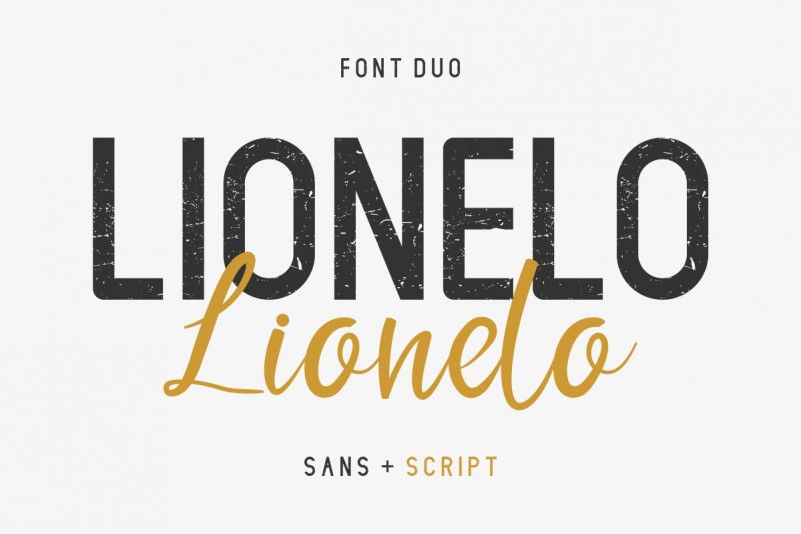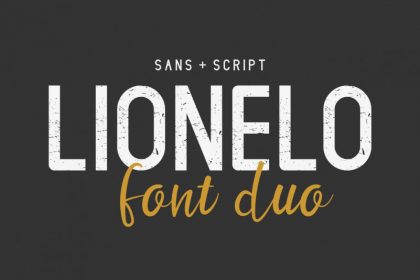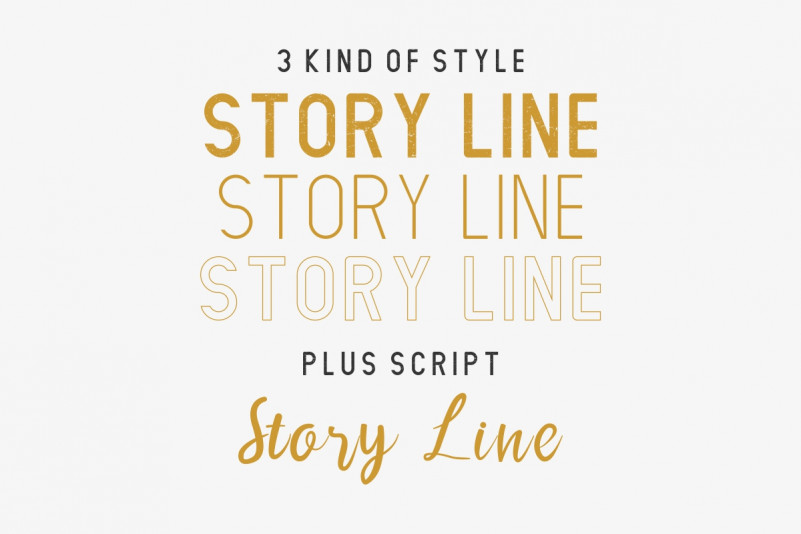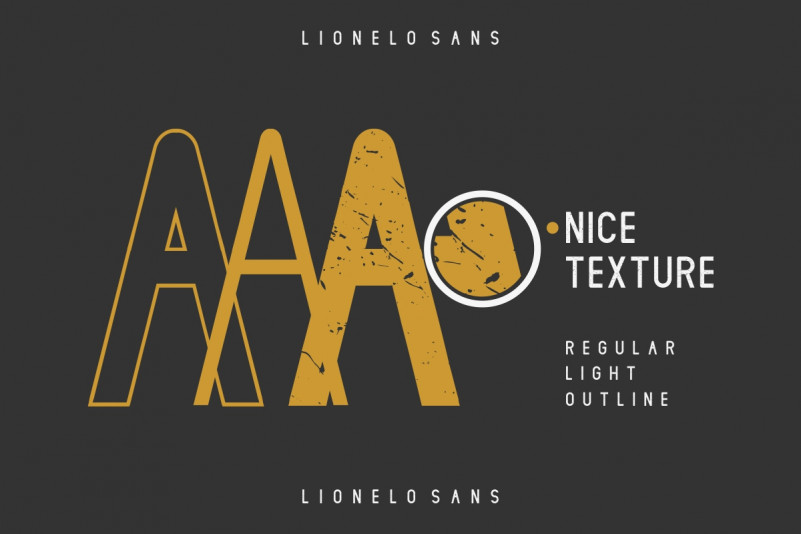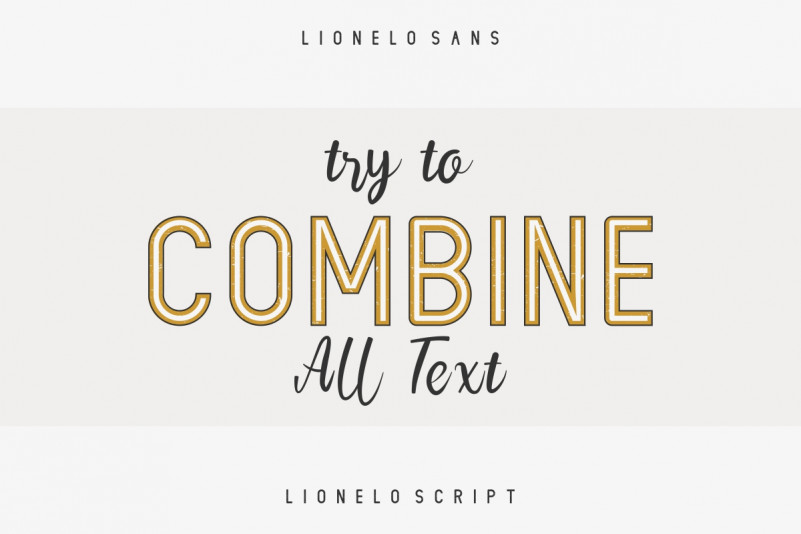
This is a vintage sans serif and stylish script handwriting font. It has a unique, elegant, classic and stylish glyph. Will be awesome for almost any project. Great for branding, logo, stationery, business card, signage, flyer, brochure, invitation, wedding, promo, ads etc. There are many industries that is suitable for this font : wedding, cafe, music, restaurant, consultant, real estate, law firm, etc